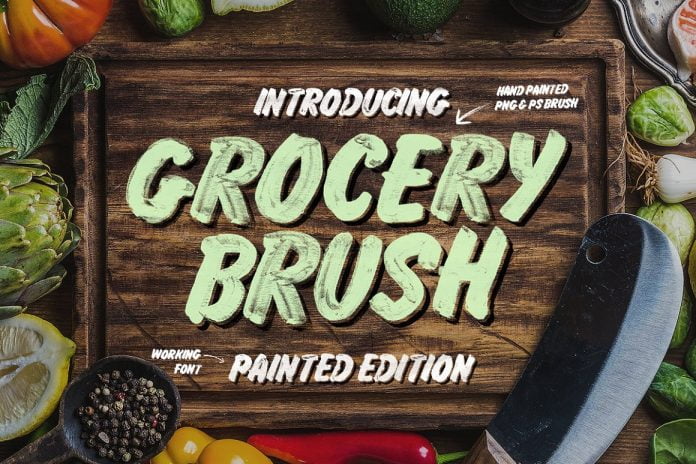
Grocery Brush Font is perfect for organic market signage, farm-fresh product labels, artisanal food packaging, local grocery store branding, farmers market posters, handmade food products, rustic restaurant menus, natural ingredient labels, homemade bakery signs, and authentic food advertising campaigns.
Grocery Brush Font is exciting because it captures the authentic spirit of local markets and handcrafted food culture through organic brush strokes that evoke freshness, tradition, and artisanal quality with genuine warmth. This naturally designed typeface combines handmade authenticity with practical functionality, making it perfect for food brands that want to communicate farm-fresh quality, local craftsmanship, and honest ingredients.
The Grocery Brush Font family includes natural brush weights with organic texture variations, featuring handmade character styling and rustic decorative elements. The font showcases authentic brush stroke details, market-inspired proportions, and artisanal design characteristics that create a comprehensive typographic system for food and market applications.
The farm-fresh appeal of Grocery Brush Font makes it an invaluable resource for organic producers, local markets, and artisanal food companies that need typography capable of communicating natural authenticity and handcrafted quality. The font's organic character helps establish immediate connections with consumers seeking genuine, locally-sourced food experiences and traditional craftsmanship values.
Farmers markets, organic food producers, and artisanal bakeries consistently choose Grocery Brush Font for its ability to convey farm-fresh authenticity and handmade quality through typography. The font excels in applications where establishing organic credibility and local market appeal are essential to brand positioning, making it particularly effective for natural food products, farmers markets, and artisanal food services targeting health-conscious consumers.
This font's comprehensive character set includes brush-styled letterforms, organic numerals, natural punctuation marks, and farm-themed symbols that support authentic market typography composition. The consistent handmade styling maintains the organic theme throughout all characters while ensuring professional readability across all food and market design projects requiring Grocery Brush Font Free Download functionality.